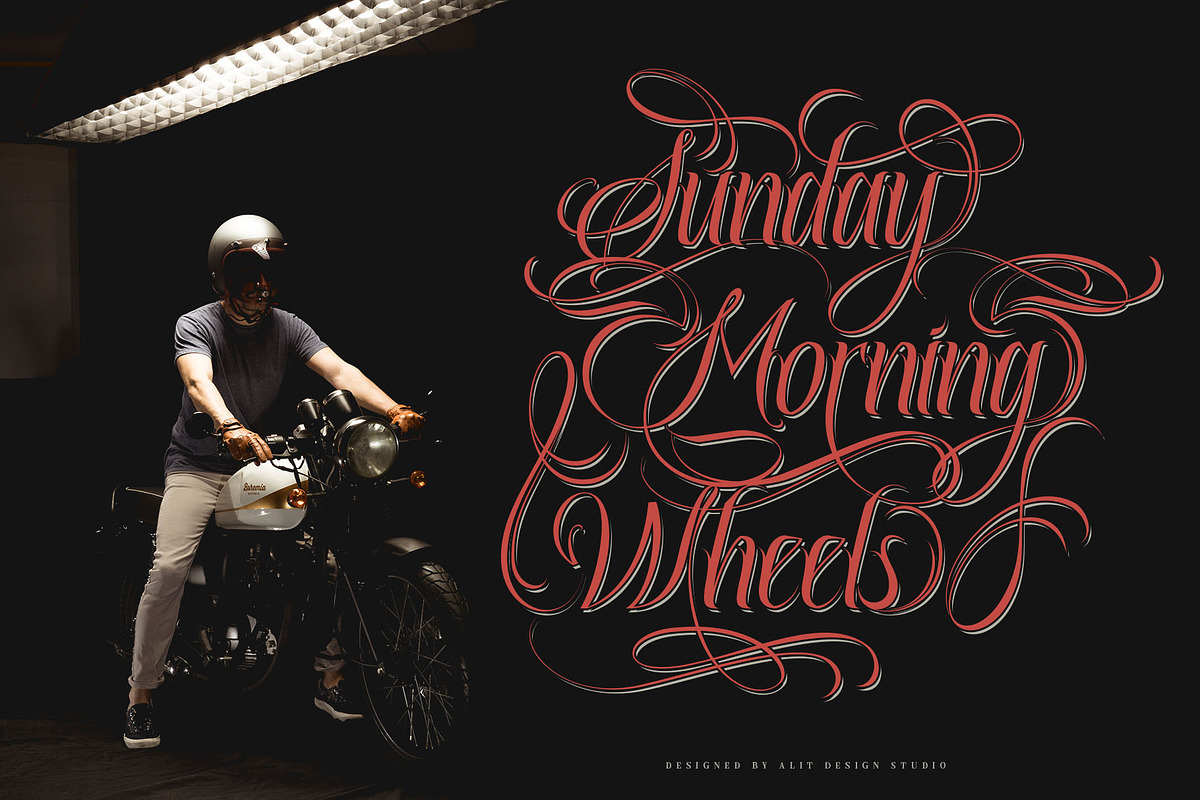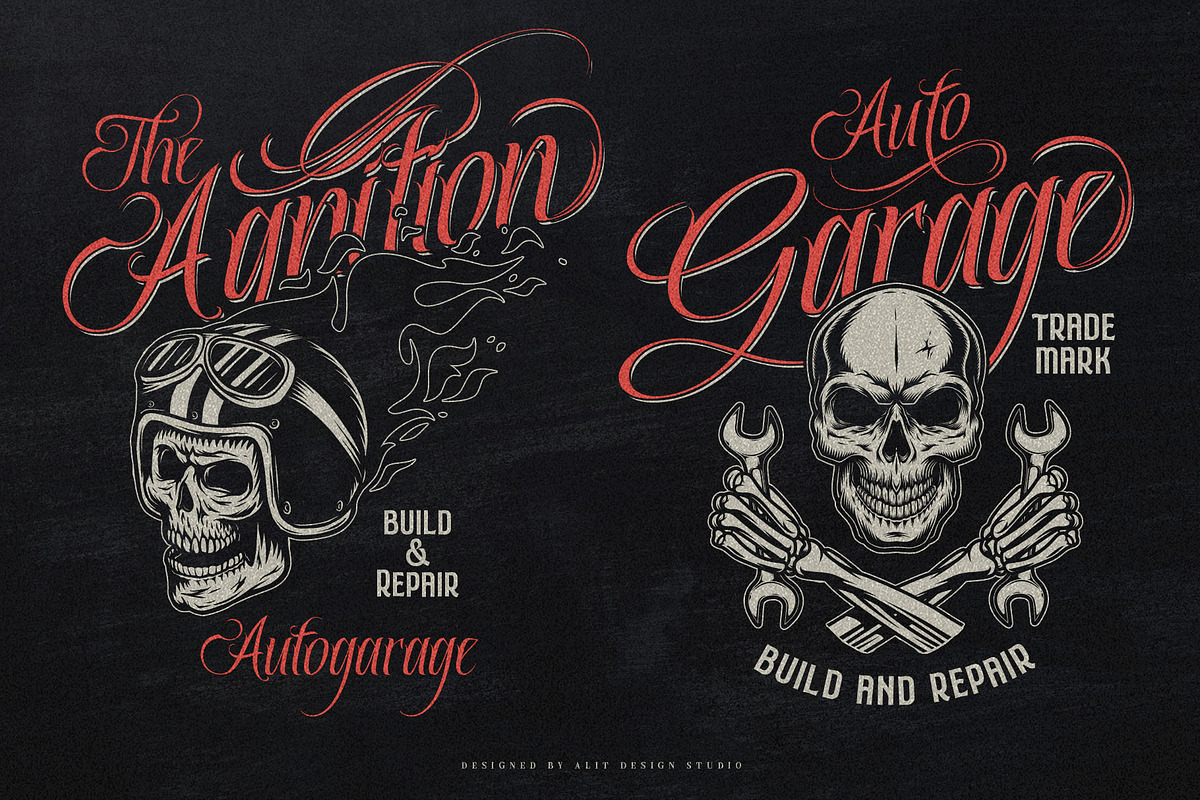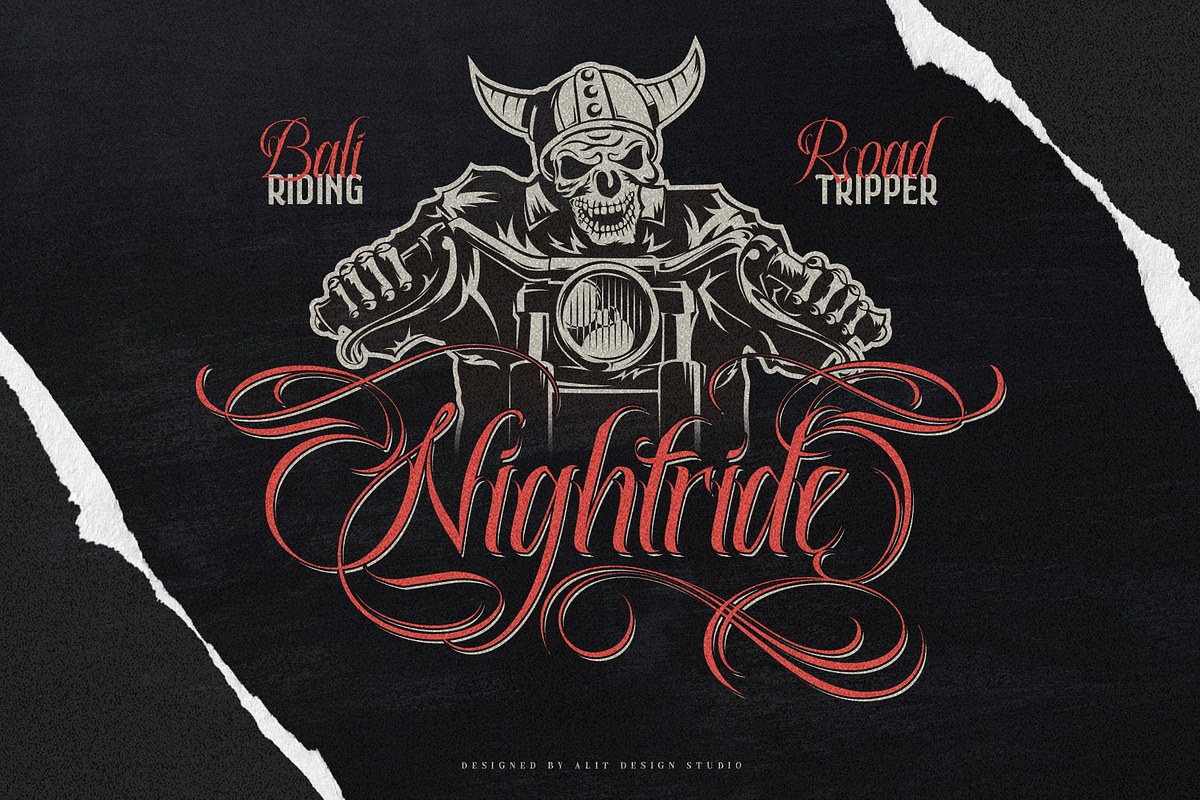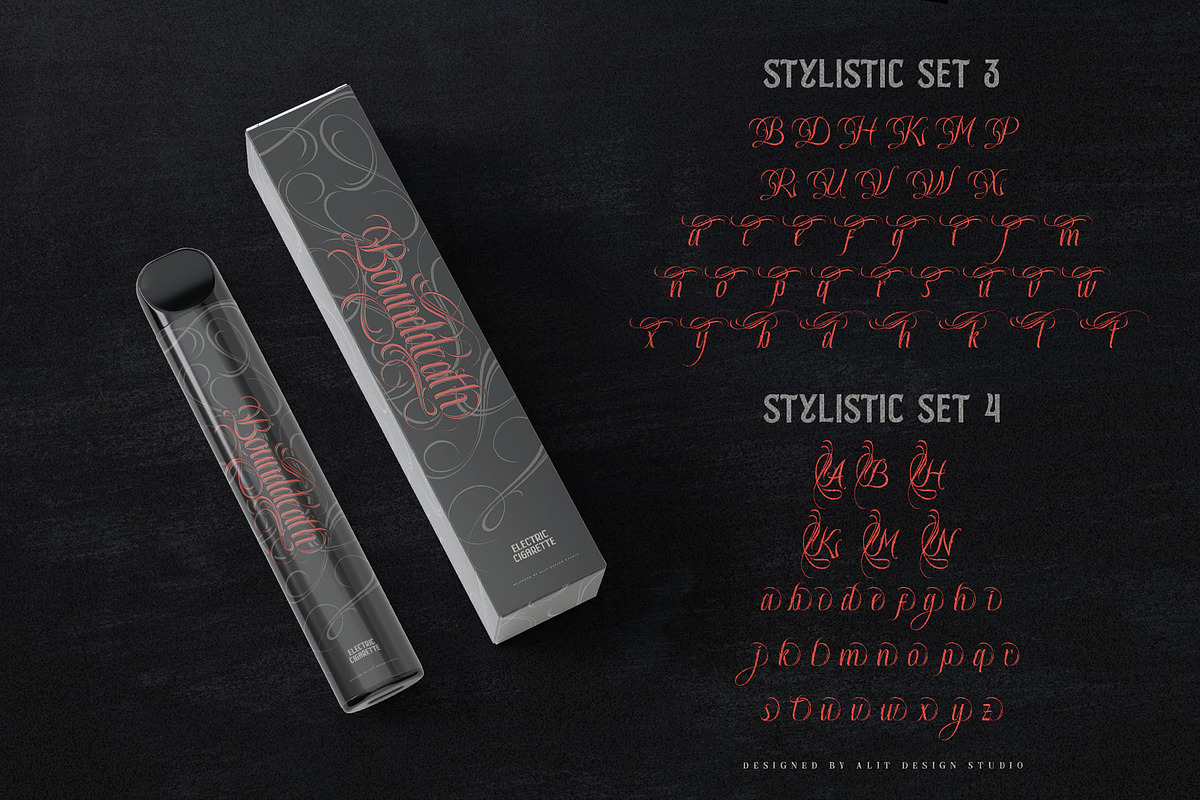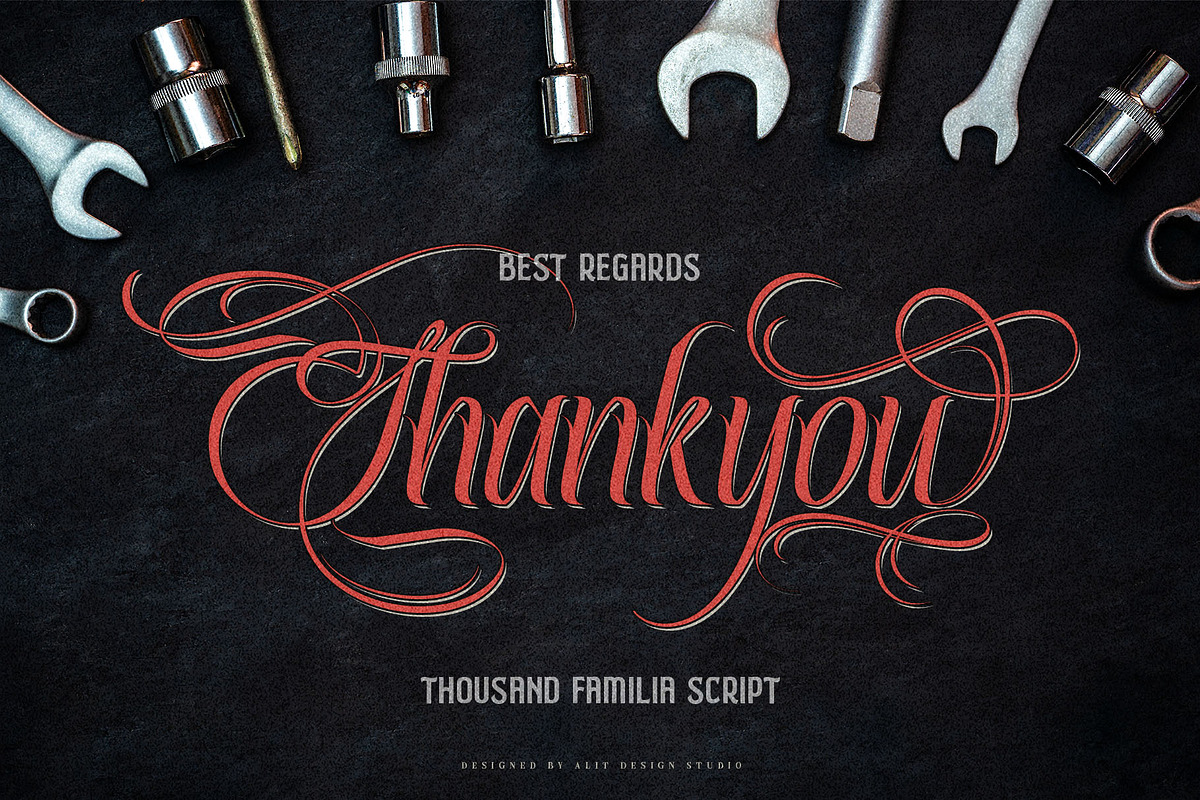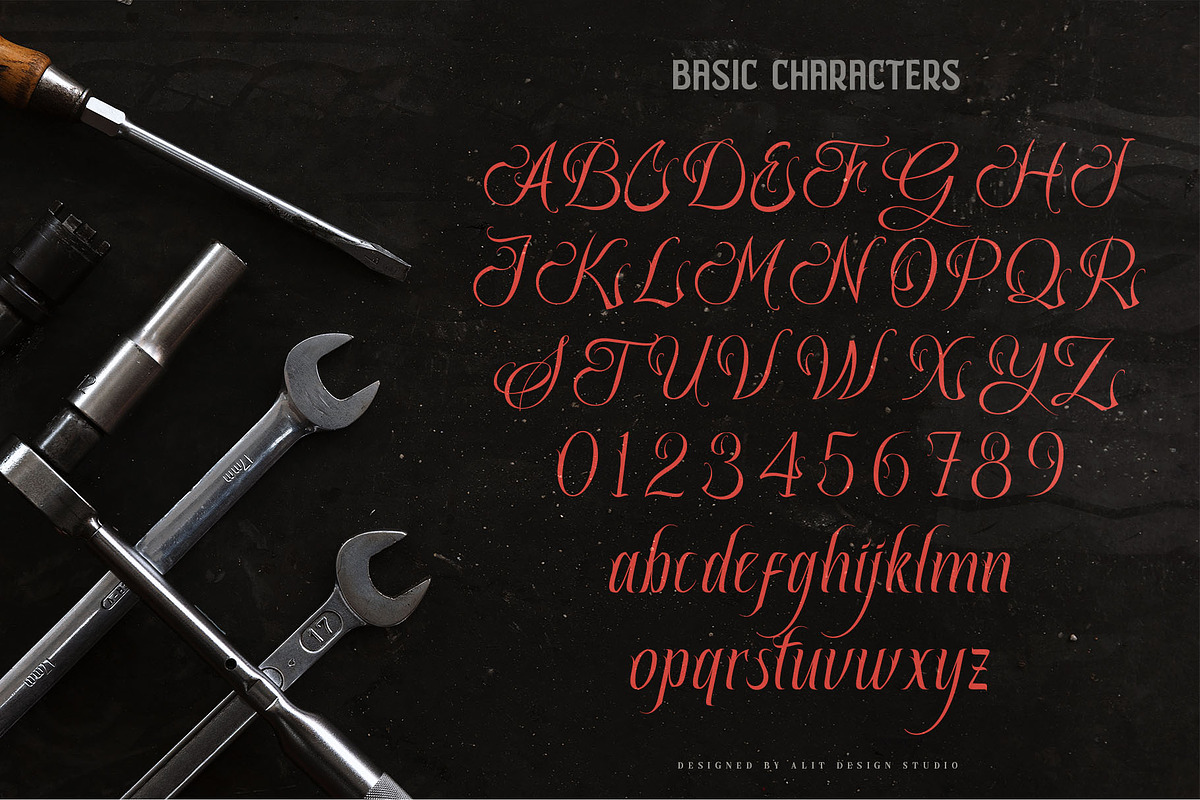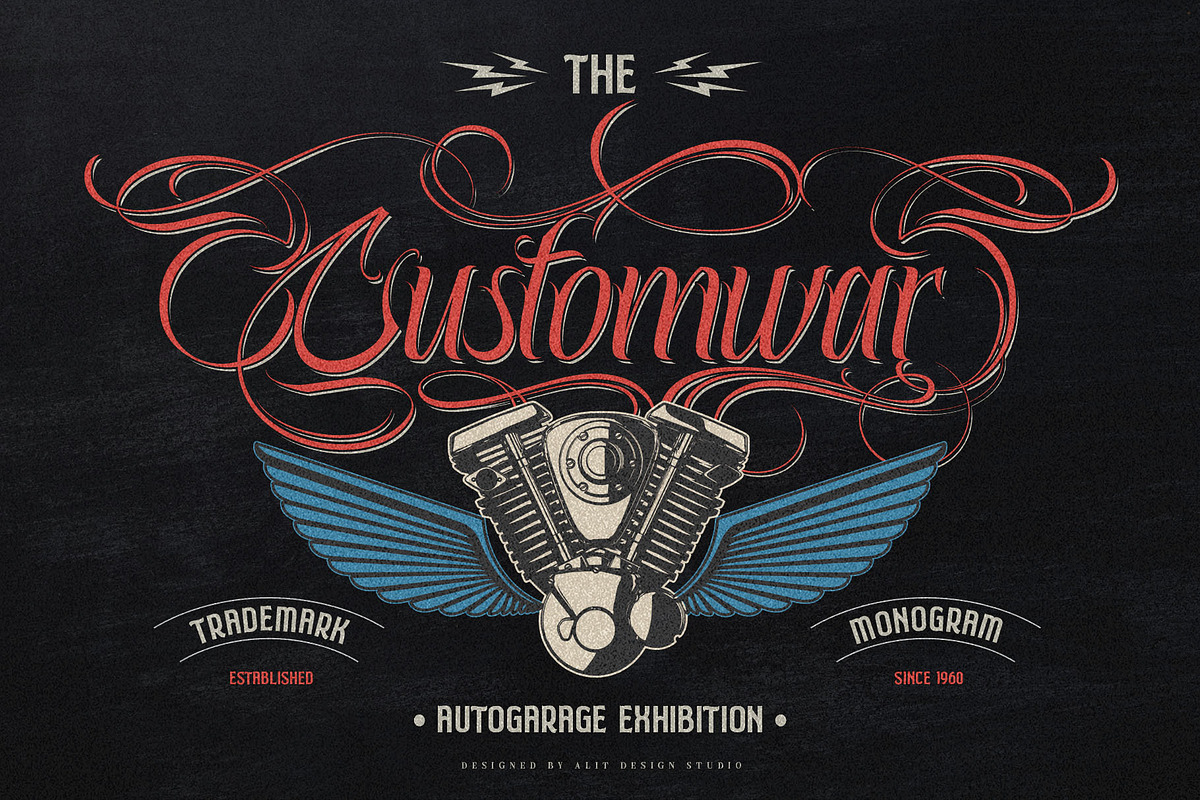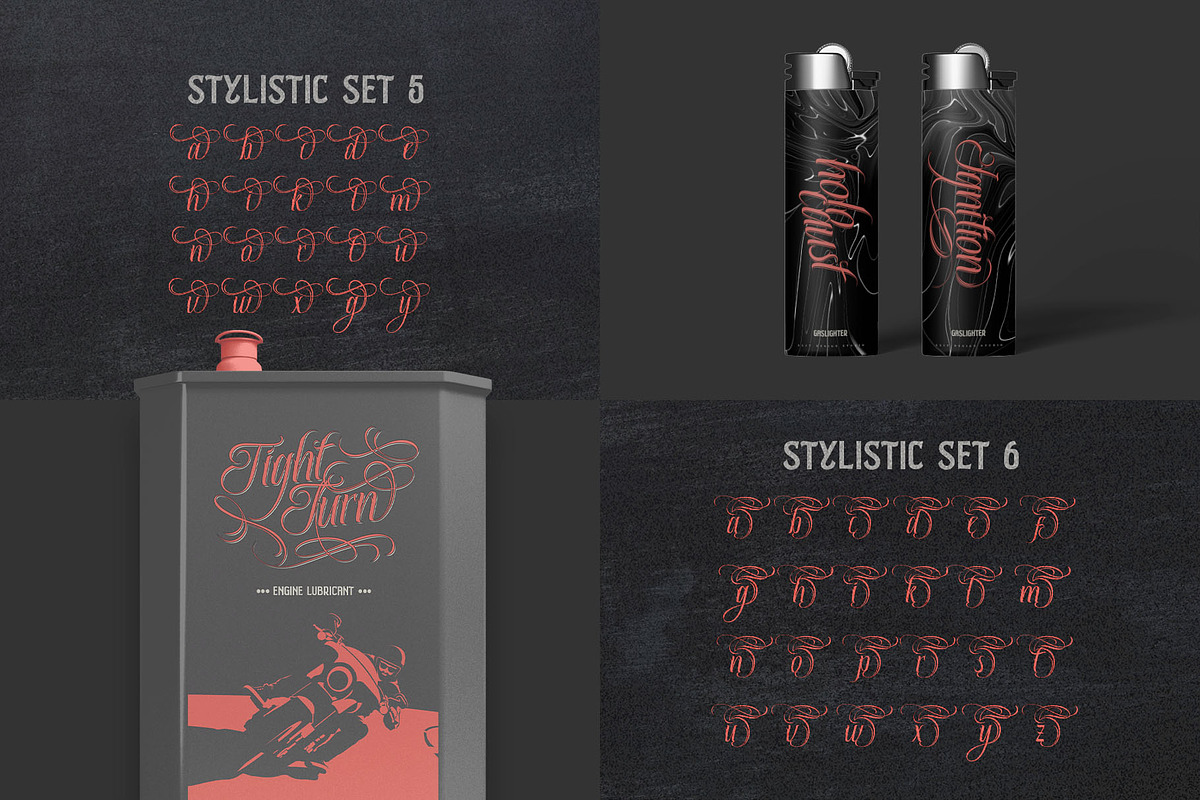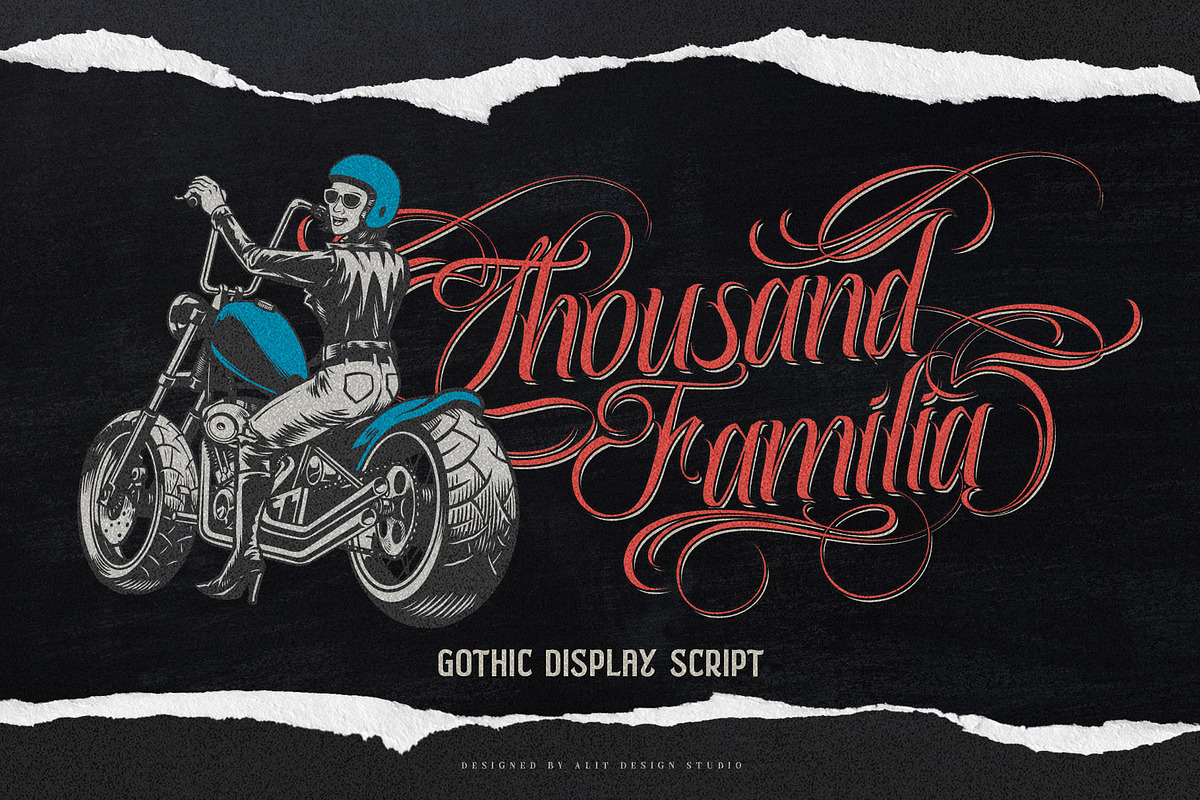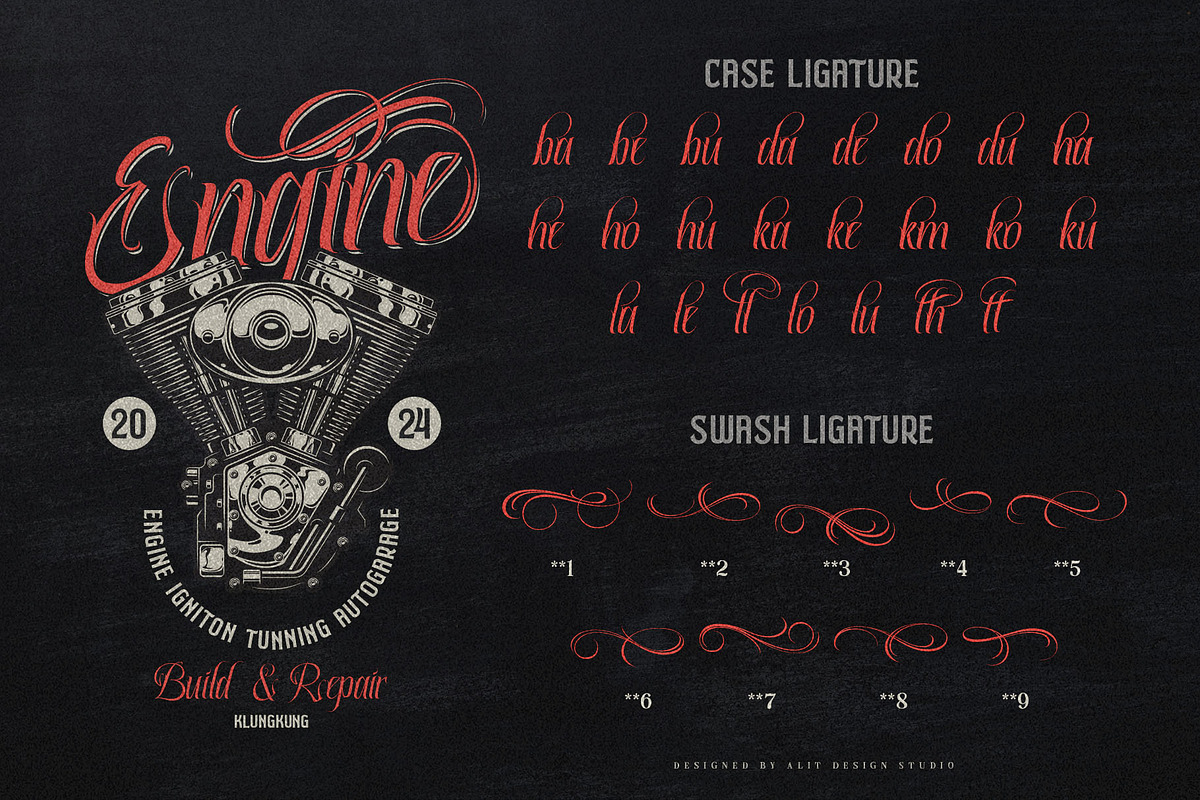
Thousand Familia
Thausand Familia: Embrace the Art of Ink with Every Letter
Step into the rich, bold world of "Thausand Familia," a script font that masterfully blends the fierce spirit of Mexican gangster tattoo artistry with contemporary elegance. Designed for those who dare to express their creativity without limits, Thausand Familia brings a unique, hand-inked aesthetic to your projects.
Authentic Tattoo Style: Inspired by the intricate and daring designs of Mexican gangster tattoos, Thausand Familia captures the essence of street art and the cultural heritage of bold, expressive ink. Every letter is a statement, each stroke a work of art.
Handcrafted Detail: Each character in Thausand Familia has been meticulously crafted to reflect the precision and artistry of traditional tattooing. The flowing curves, sharp edges, and elaborate flourishes bring a handmade feel that stands out in any design.
Versatile Script: Thausand Familia's dynamic script style makes it perfect for a wide range of applications. From logo design and branding to posters, apparel, and social media graphics, this font adds a distinctive edge that commands attention.
Cultural Fusion: Celebrating the fusion of tradition and modernity, Thausand Familia pays homage to the rich history of Mexican tattoo culture while providing a fresh, contemporary twist. It's a font that tells a story, rooted in heritage yet designed for today's creative needs.
Complete Character Set: Featuring a full set of uppercase and lowercase letters, numbers, punctuation, and special characters, Thausand Familia ensures you have everything you need to create striking, cohesive designs.
Usage Ideas:
- Tattoo Shops and Studios: Perfect for logos, signage, and promotional materials that need to convey authenticity and artistry.
- Clothing and Merchandise: Make a statement with unique, bold designs for t-shirts, hoodies, and accessories.
- Event Posters and Flyers: Stand out with eye-catching typographic elements that draw in your audience.
- Social Media Graphics: Enhance your posts with a font that adds personality and flair to your visual content.
Conclusion: Thausand Familia is more than just a font; it's a journey into the world of tattoo artistry, where each letter is a tribute to the bold, the brave, and the beautiful. Whether you're looking to add an edge to your brand or bring a touch of cultural richness to your designs, Thausand Familia is the ultimate choice for those who want their words to leave a lasting impression. Embrace the art of ink with Thausand Familia, and let your creativity flow like never before.